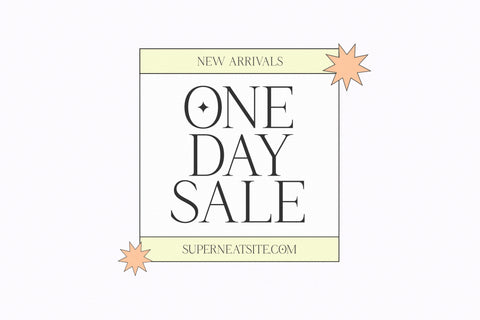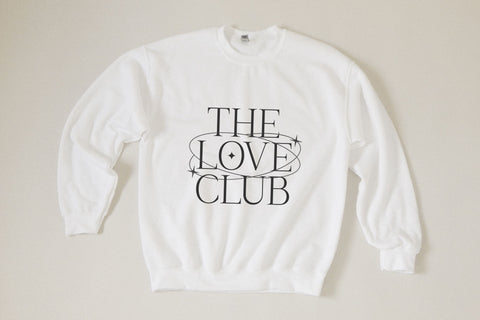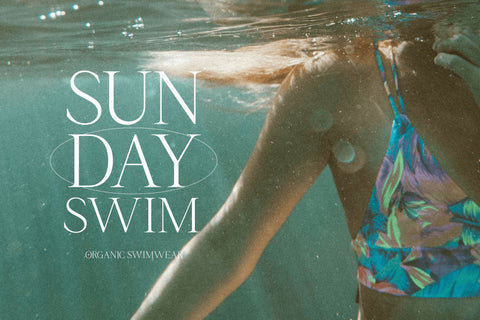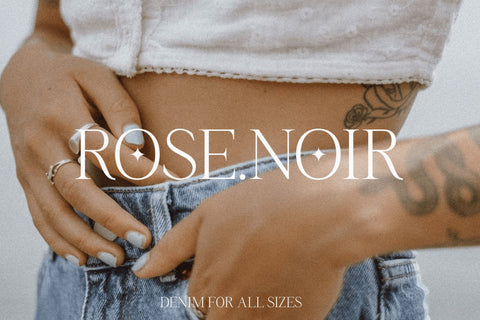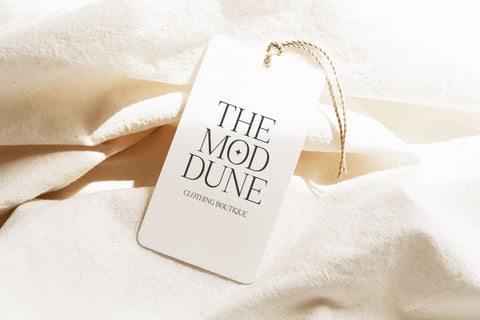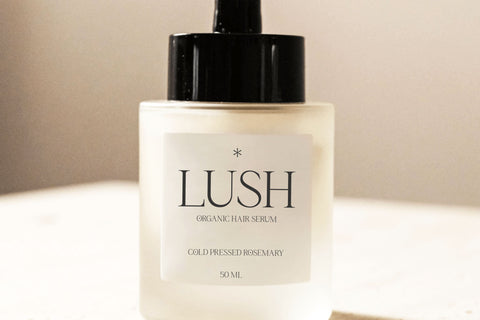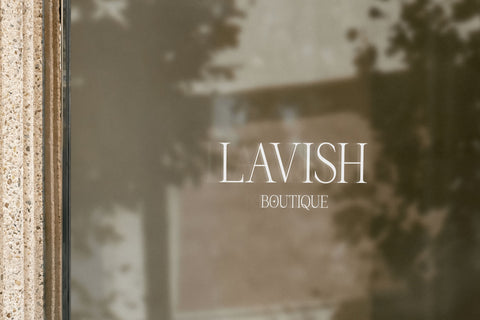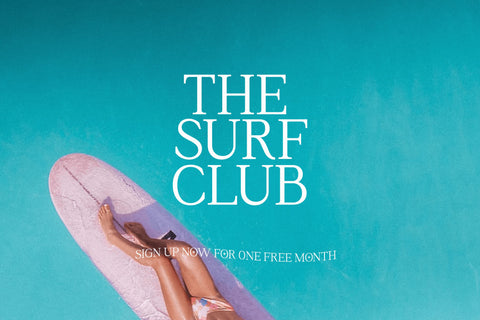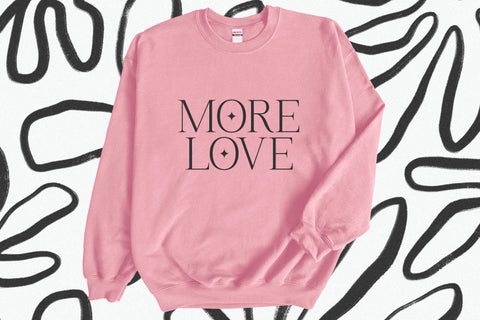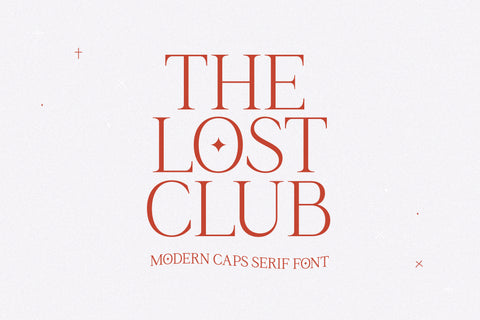
The Lost Club - Modern Serif Font
The Lost Club is a modern serif font. This is an all caps font.
This font is perfect for logos, branding, quotes, social media, shirts, mugs, cricut projects, instagram quotes, stickers and more!